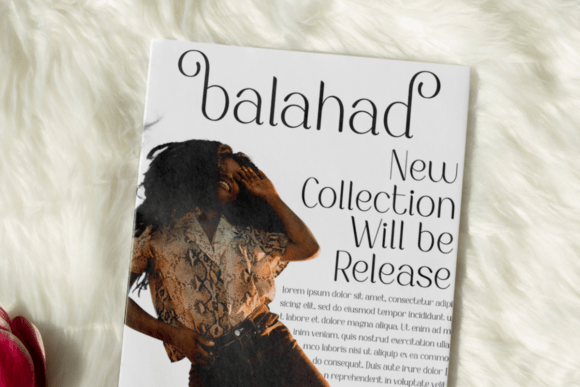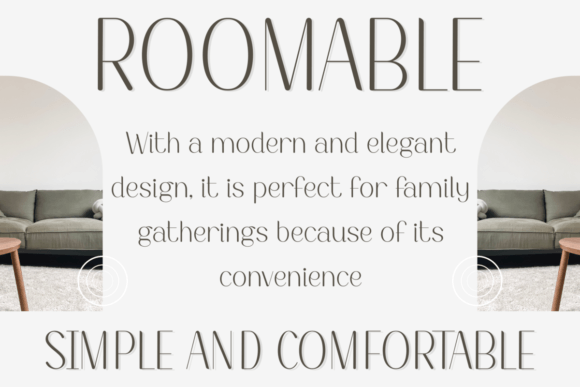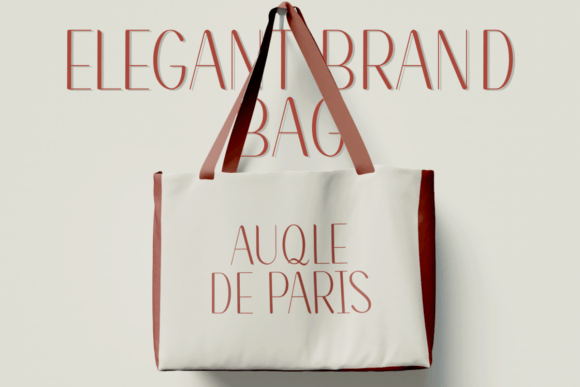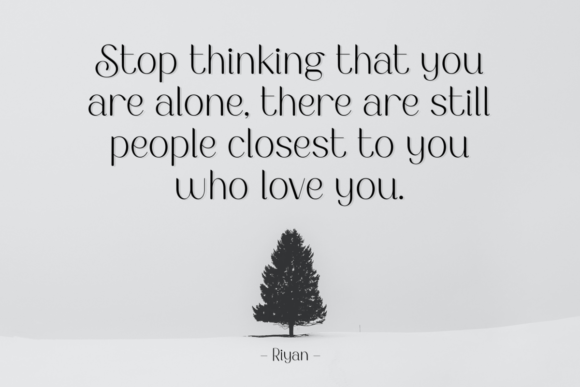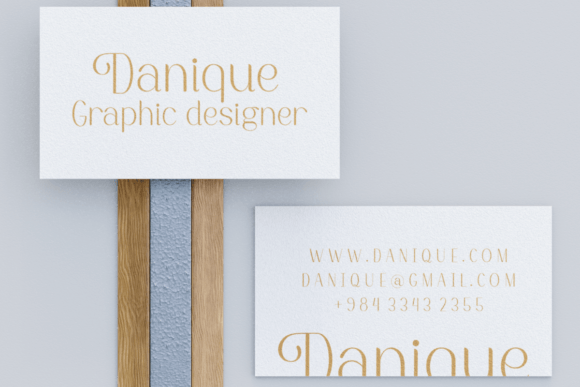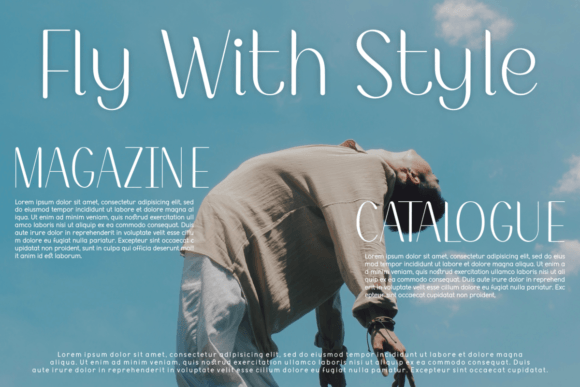
Hawkin Font: Elevate Your Typography Designs with Elegance and Style
In the world of typography, a font can make or break a design. If you’re a designer or crafter looking for a modern and elegant sans serif font to take your projects to the next level, look no further than Hawkin Font. This beautiful typeface is designed to add a stylish note to your typography designs, making it ideal for a wide range of applications, from fashion themes and web graphics to branding projects and product labels.
The Characteristics of Hawkin Font
Hawkin Font is a stunning sans serif font that exudes elegance and sophistication. Its clean lines, precise curves, and balanced proportions make it a versatile typeface that can be used in various design contexts. Whether you’re creating a logo, brochure, or website, Hawkin Font is sure to impress with its modern and refined aesthetic.
What Makes Hawkin Font Special?
So, what sets Hawkin Font apart from other fonts in its category? Here are a few features that make it a standout:
- PUA Encoding: Hawkin Font is PUA (Private Use Area) encoded, which means you can easily access all the glyphs and swashes. This feature makes it easy to customize your designs and add a personal touch.
- Modern and Elegant Design: Hawkin Font boasts a sleek and contemporary design that’s perfect for fashion-forward projects. Its elegant curves and lines will add a touch of sophistication to any design.
- Highly Versatile: This font is suitable for a wide range of applications, including fashion themes, web graphics, branding projects, product labels, and more.
Use Cases for Hawkin Font
Hawkin Font is an incredibly versatile typeface that can be used in various design projects. Here are some examples of how you can use this font to elevate your designs:
- Fashion Themes: Create stunning fashion-themed designs, such as logos, brochures, and advertisements, with Hawkin Font. Its modern and elegant design makes it perfect for fashion brands.
- Web Graphics: Use Hawkin Font to create engaging web graphics, such as social media graphics, banners, and icons. Its clean lines and precise curves will make your graphics stand out.
- Branding Projects: Develop a strong brand identity with Hawkin Font. Its elegant design makes it suitable for logos, business cards, and letterheads.
- Product Labels: Create eye-catching product labels with Hawkin Font. Its modern design will make your products stand out on store shelves.
Tips for Using Hawkin Font Effectively
To get the most out of Hawkin Font, here are some tips to keep in mind:
- Pair it with Other Fonts: Experiment with pairing Hawkin Font with other fonts to create a unique and visually appealing design.
- Use it in Headings and Titles: Hawkin Font is perfect for headings and titles. Use it to add a touch of elegance and sophistication to your designs.
- Experiment with Colors and Textures: Don’t be afraid to experiment with different colors and textures to add depth and interest to your designs.
In conclusion, Hawkin Font is a beautiful and elegant sans serif font that’s perfect for designers and crafters looking to add a stylish note to their typography designs. Its modern design, PUA encoding, and versatility make it an excellent choice for a wide range of applications. Whether you’re creating fashion themes, web graphics, branding projects, or product labels, Hawkin Font is sure to elevate your designs and make them stand out.